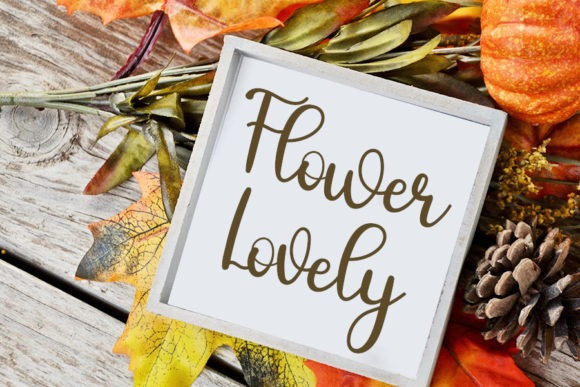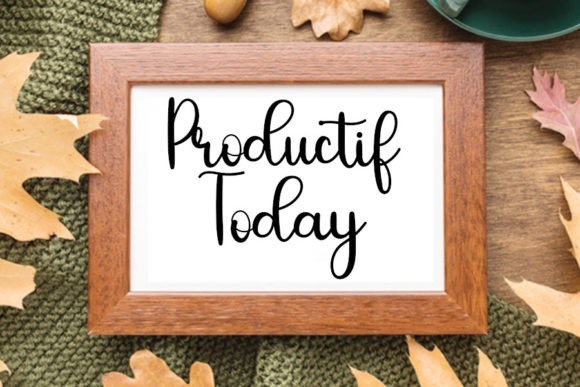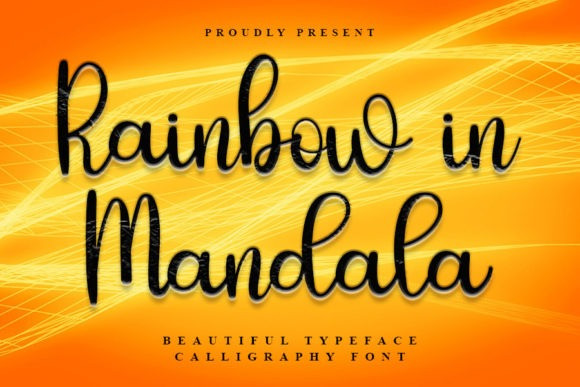
Rainbow In Mandala Font
Rainbow In Mandala Script Font is a lovely script font featuring charming, playful characters that seem to dance along the baseline. Add this font to your most creative ideas, and notice how it makes them stand out!